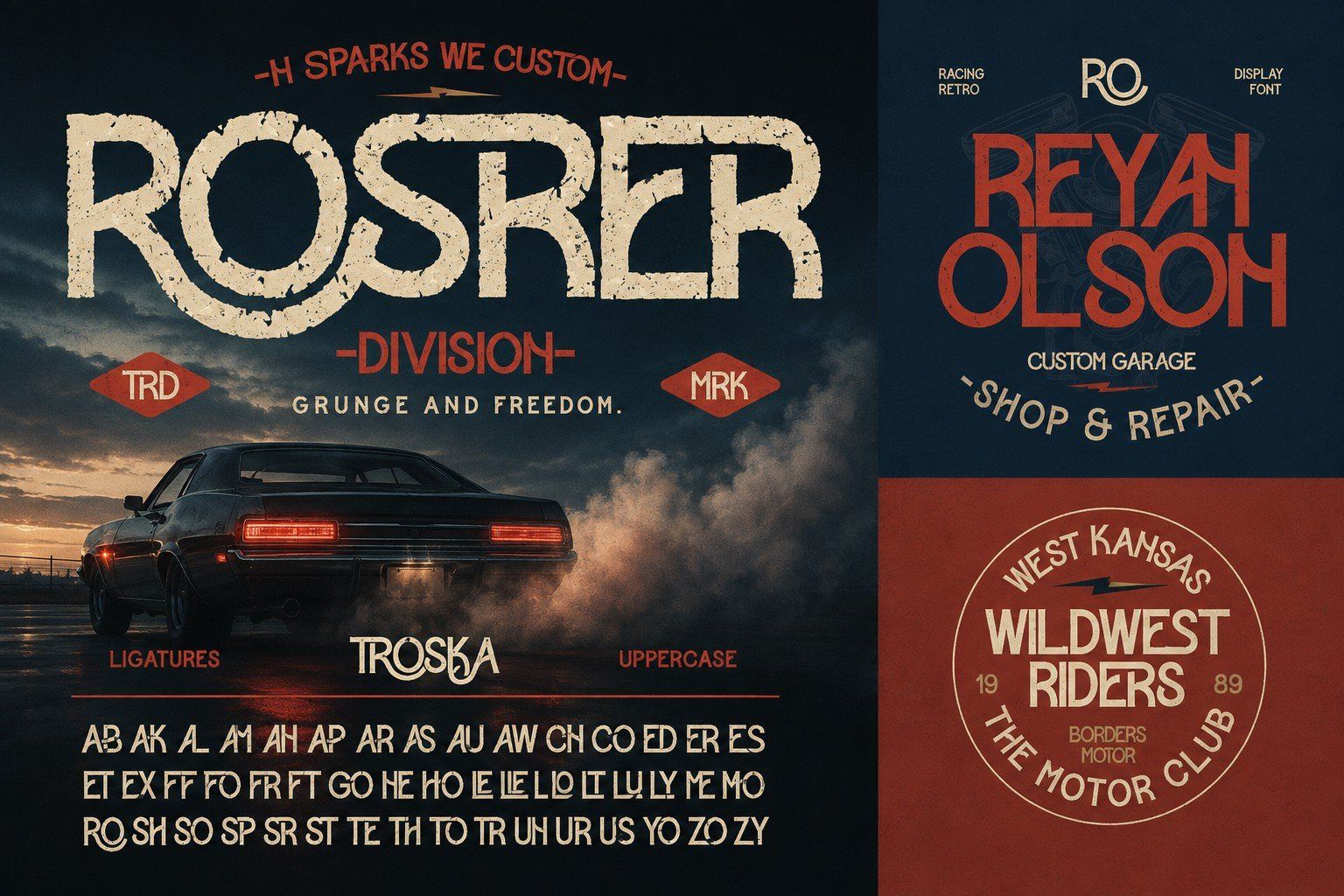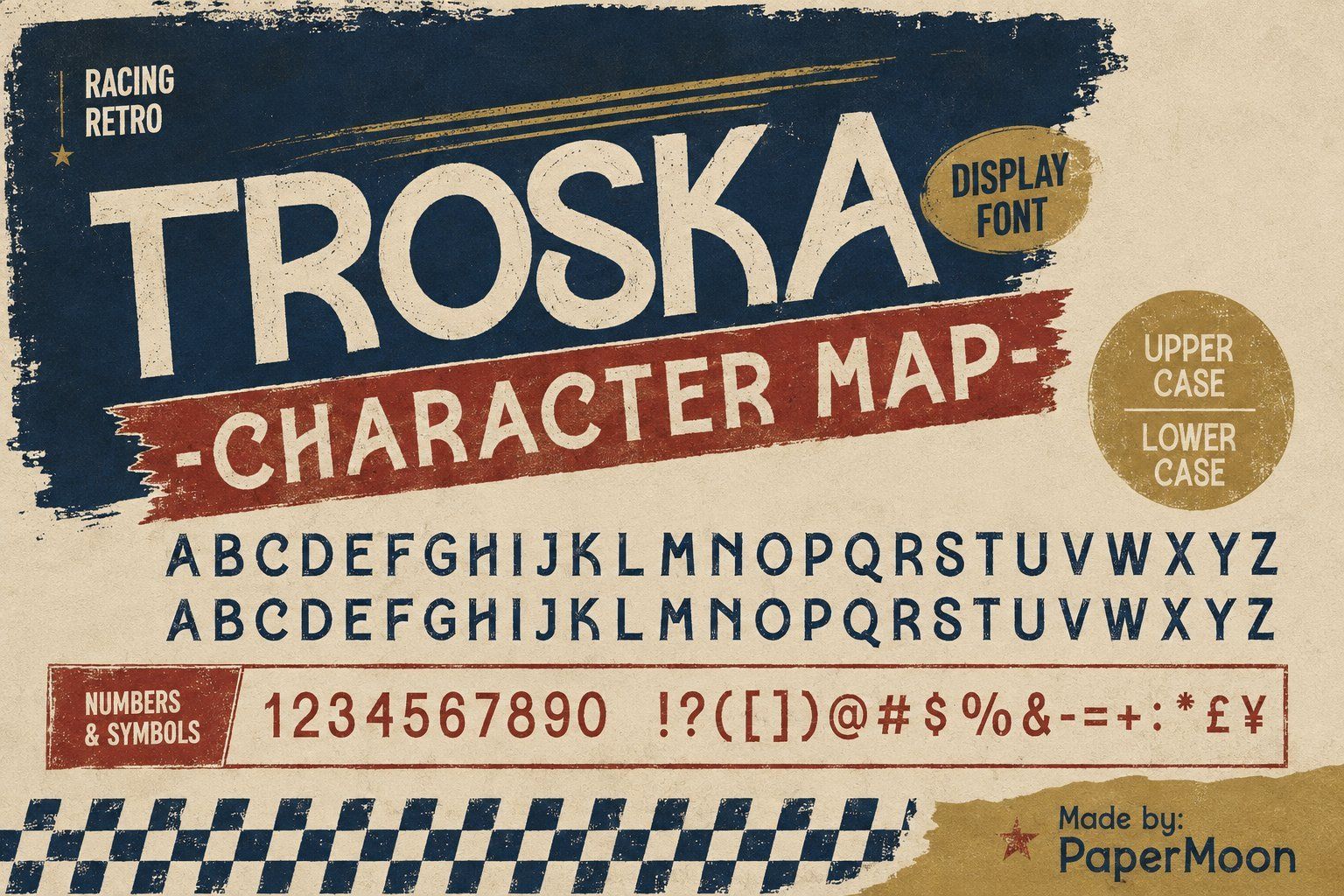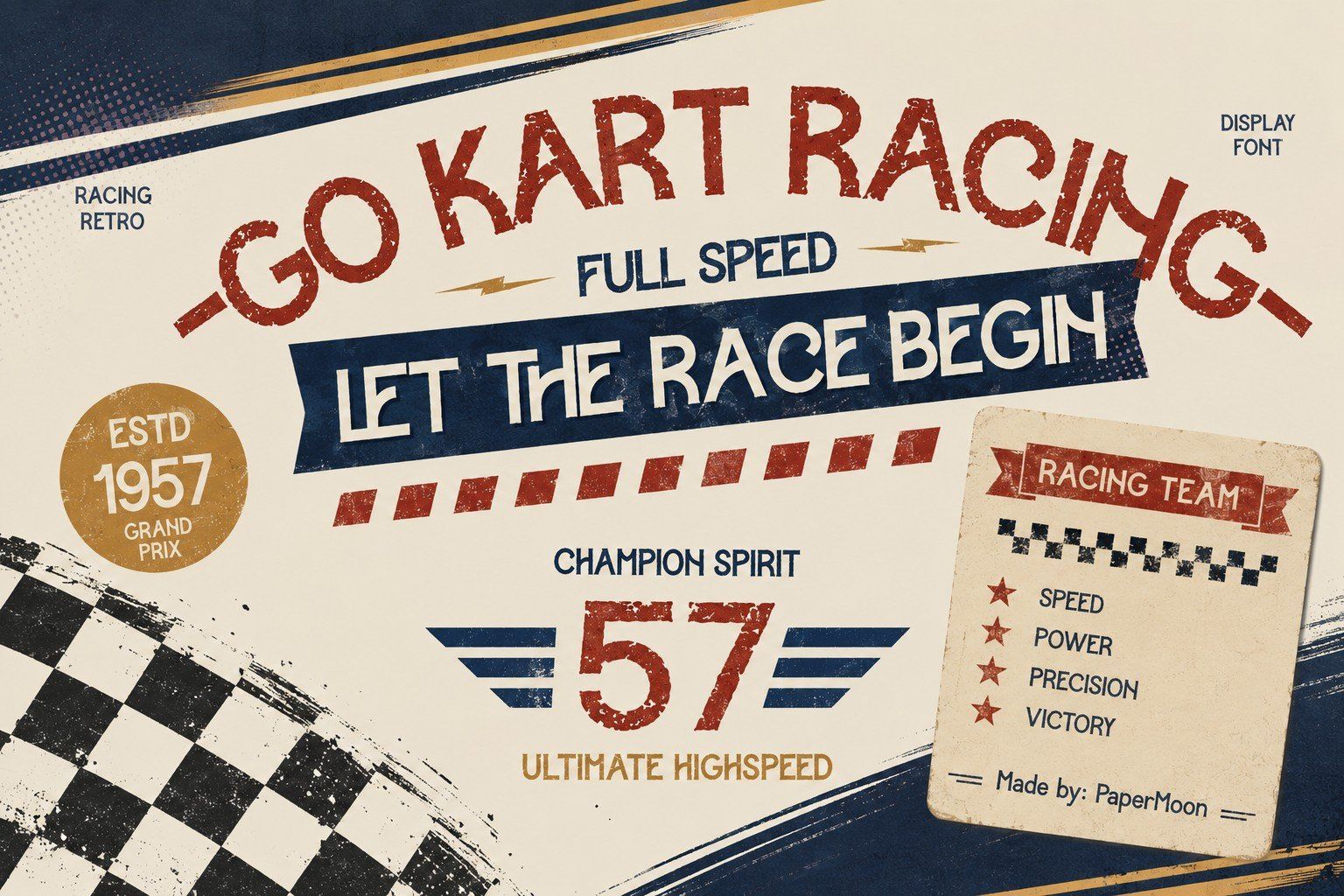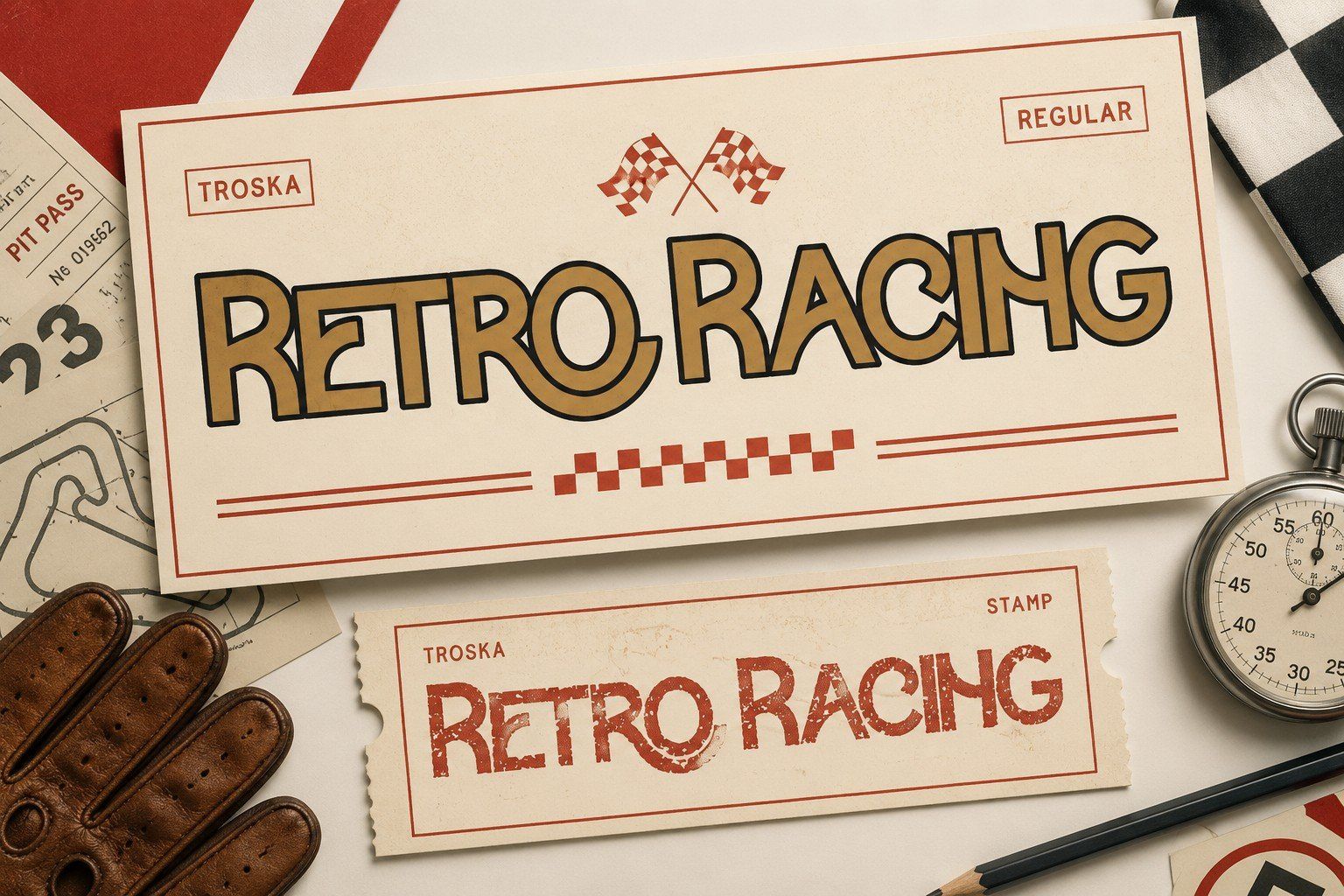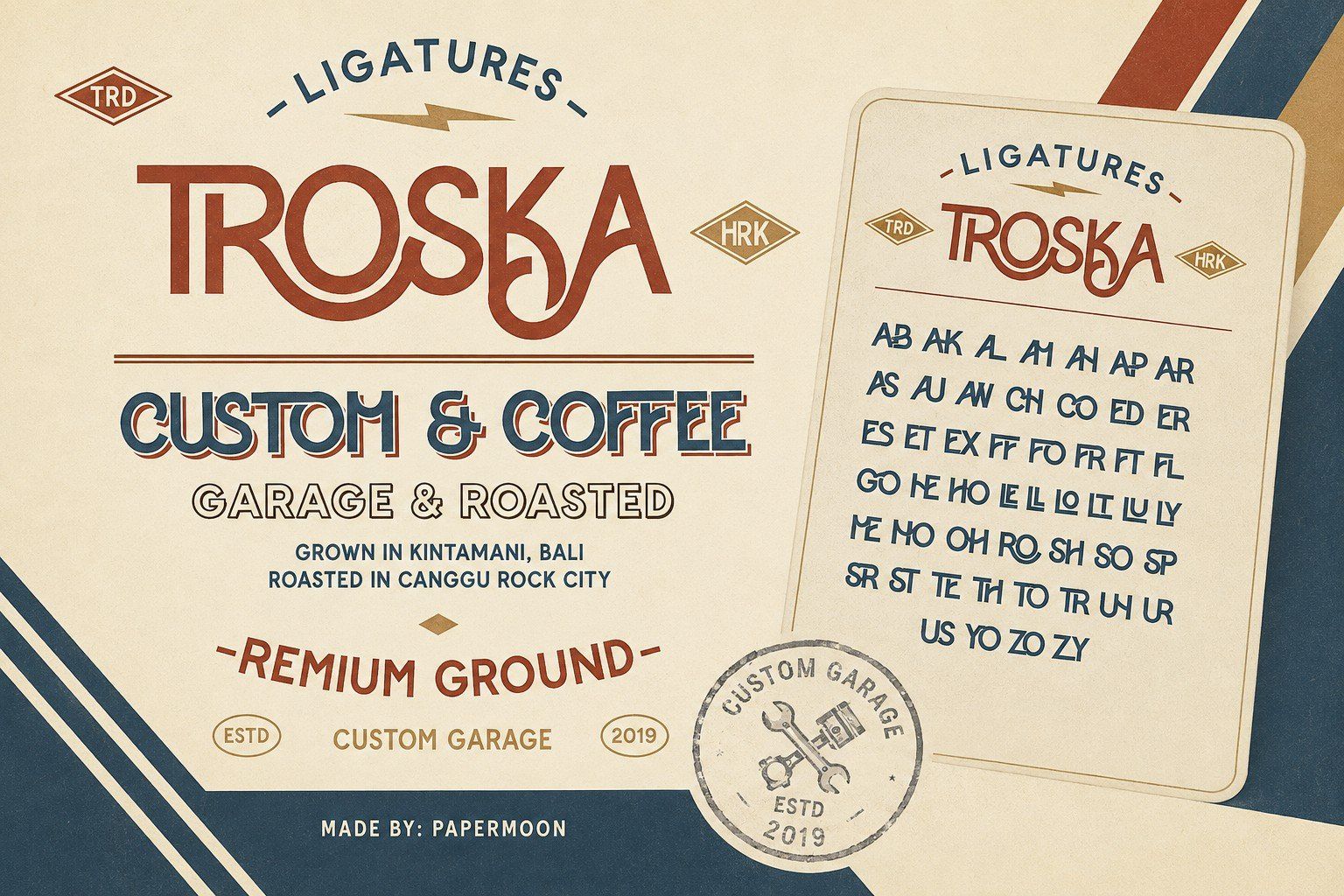
MarketplaceFontsOvertake | Retro Racing Display Font
Overtake is a retro-racing display font with bold, condensed letterforms built for high-impact logos, posters, and motorsport branding. Inspired by vintage racing graphics, garage signage, and racing posters, it pairs a nostalgic, adventurous character with a bold, aggressive display voice that stands out in short, hero-style text.
The package includes two complementary styles. Overtake Regular delivers a clean, high-impact display impression for sharp, readable headlines and wordmarks, while Overtake Stamp adds a printed, distressed treatment that feels pulled straight from a weathered race flyer or garage sign. Together they give your racing and vintage projects both polish and grit in one kit.
Recommended uses include racing and sports posters, team and brand logos, automotive and motorcycle graphics, vintage branding and packaging, streetwear and urban fashion lettering, event titles, apparel and merchandise, and editorial headlines.
• Uppercase A-Z, numbers, punctuation, and symbols
• Alternates and ligatures for versatile, distinctive typography
• Multilingual / extended-Latin accents for accented European languages
Whether your next marquee needs a vintage logo, a bold racing poster, or an unmistakable wordmark, Overtake delivers strong, memorable type that leaves the pack behind.